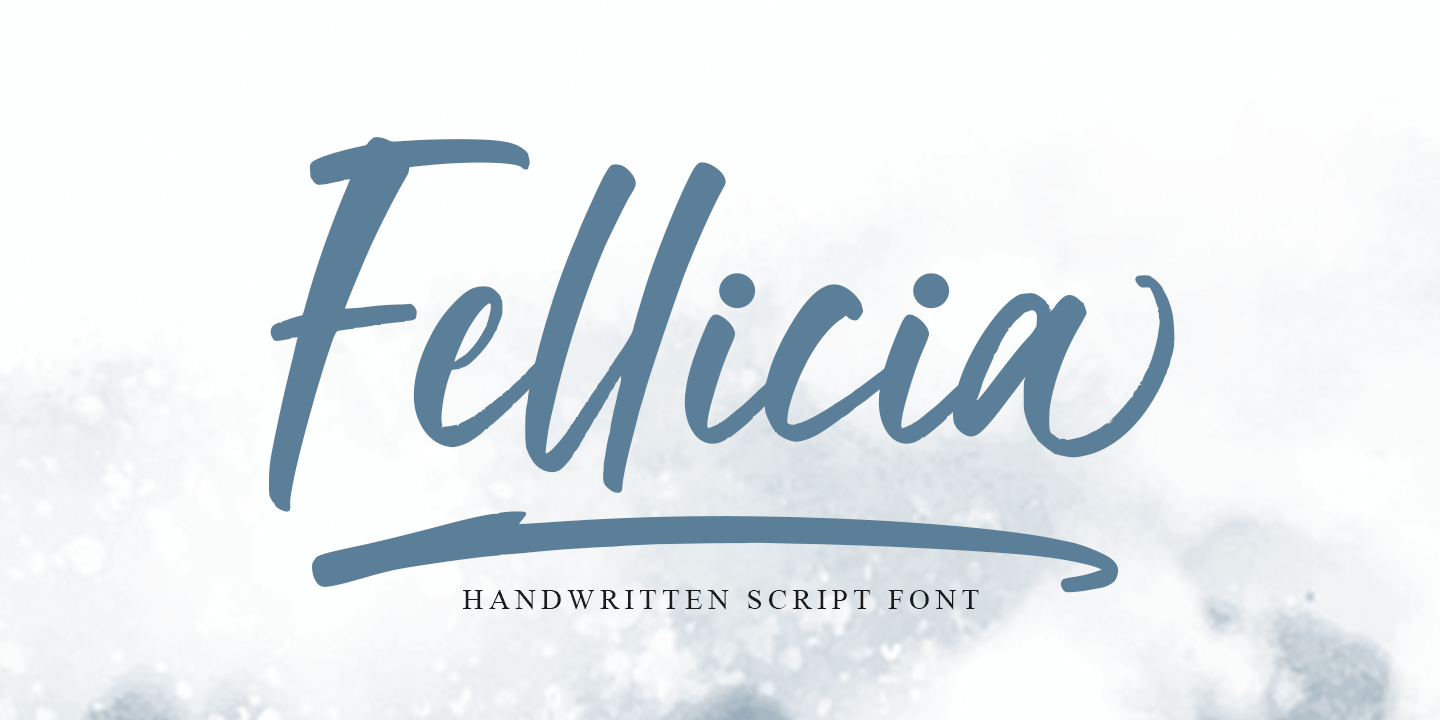
Fellicia Font is perfect for feminine lifestyle brands, beauty salons, fashion boutiques, romantic wedding planners, delicate jewelry stores, floral design studios, spa services, and elegant personal brands that require graceful typography with feminine charm and sophisticated elegance that celebrates natural beauty and refined femininity.
What makes Fellicia Font exciting is its exceptional ability to embody feminine grace and sophisticated beauty through delicately crafted letterforms that flow with natural elegance. This enchanting typeface features gentle curves and refined characteristics that celebrate the strength and beauty of femininity, making it ideal for brands serving women who appreciate authentic elegance and sophisticated personal style.
The Fellicia Font family includes light, regular, and bold weights, complemented by flowing script variations and decorative flourishes for enhanced feminine appeal. Each style maintains the font's characteristic graceful charm while providing designers with comprehensive tools for creating elegant layouts and sophisticated brand communications that honor feminine aesthetics.
Beauty professionals consistently select Fellicia Font Free Download for projects requiring authentic feminine appeal and sophisticated charm. This versatile typeface seamlessly conveys elegance while maintaining excellent readability, ensuring brand messages resonate with audiences seeking genuine beauty experiences and sophisticated feminine products that enhance their natural grace and personal style.
The font's feminine aesthetics and graceful character make it particularly suitable for beauty and fashion sectors. Fellicia Font delivers exceptional elegant impact while ensuring clear communication, offering designers a sophisticated solution for creating memorable brand identities that communicate femininity, grace, and elegant excellence across beauty and lifestyle marketing applications.